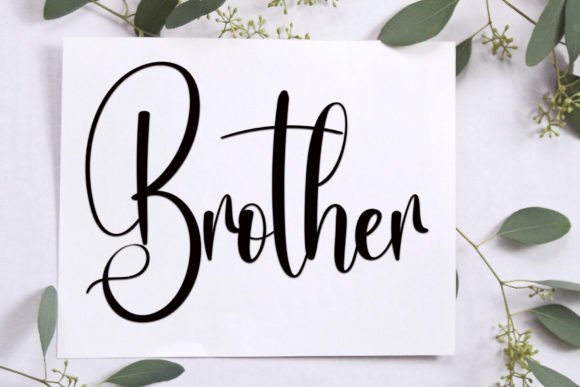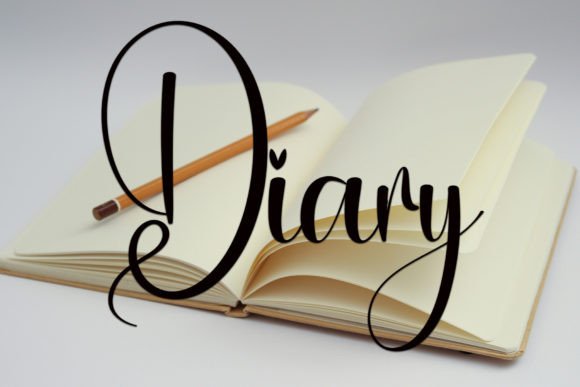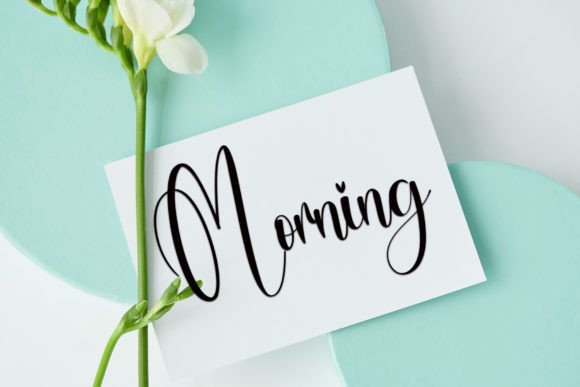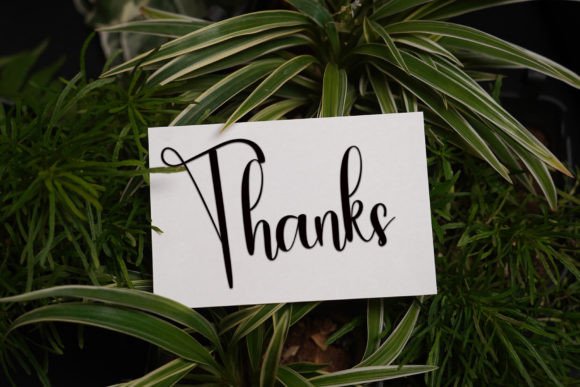
I still remember the frustration of working on a project, hours poured into designing every detail, only to hit a roadblock: finding the right font. My client wanted something stylish, yet timeless; elegant, yet approachable. I scoured font libraries, but nothing seemed quite right. That’s when I stumbled upon Hiblings Font✨, a stylish handwritten font that has since become a staple in my design toolkit.
First Impressions: A Love Letter to Hiblings
Hiblings Font is a beautifully crafted handwritten font with a contemporary atmosphere and impeccable form, inspired by timeless classic calligraphy. Its balanced and varied design makes it perfect for enhancing the beauty of your projects. Here are a few things I love about Hiblings:
- ✨ Elegant and stylish, yet approachable and friendly
- ✅ PUA encoded for easy access to glyphs and ligatures
- ⚡️ Highly versatile, suitable for a wide range of projects
The Honest Review: Weighing the Pros and Cons
While Hiblings Font has won my heart, it’s not without its quirks. Here are a few things to consider:
- 🤔 Limited availability of certain characters or diacritical marks
- ⚠️ May require additional setup to access OpenType features on certain platforms
The Designer Inspiration Behind Hiblings
Hiblings Font was inspired by the timeless beauty of classic calligraphy. Its creator sought to craft a font that would bring elegance and sophistication to modern designs, while remaining approachable and friendly. The result is a font that feels both nostalgic and contemporary.
| What is PUA encoding, and how does it benefit Hiblings Font? | PUA (Private Use Area) encoding allows for easy access to glyphs and ligatures, making it simple to use Hiblings Font in various design applications. |
| Is Hiblings Font suitable for body text? | While Hiblings Font is elegant and stylish, it’s best suited for headings and titles. For body text, consider a more traditional font for optimal readability. |